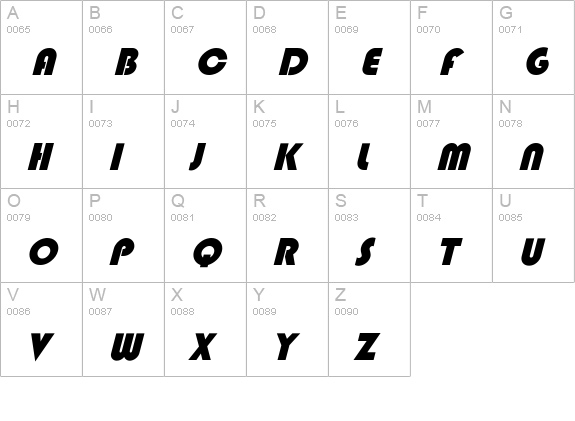
BlippoObl-Heavy Font Details
BlippoObl-Heavy is a heavy, high-impact variant in the BlippoObl typeface family \xE2\x80\x94 well suited to high-impact headlines, posters, and display advertising.
BlippoObl-Heavy is a bold and eye-catching display font that exudes a sense of modernity and playfulness. Its thick, rounded letters make a strong visual impact, perfect for creating attention-grabbing headlines, posters, and logos. The unique slanted design adds a dynamic element to any design project, giving it a sense of movement and energy. What makes BlippoObl-Heavy even more appealing is that it is available for free download at FontsMarket.com. This means that you can easily access this stylish font without any cost, making it a valuable resource for designers, artists, and creatives looking to elevate their work with a touch of boldness and personality. Whether you're working on a branding project, a social media campaign, or simply want to add a fun twist to your designs, BlippoObl-Heavy is a versatile choice that will make your text stand out in a crowd. Download this exciting font today and let your creativity shine!